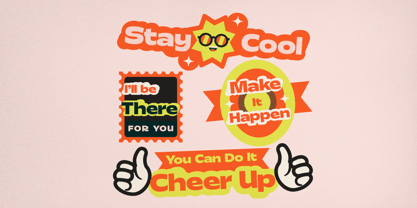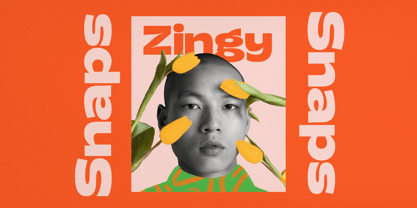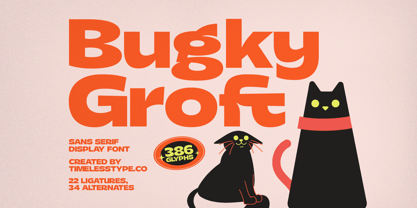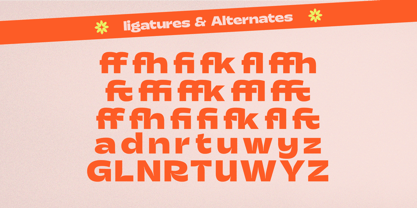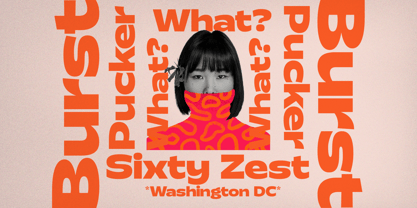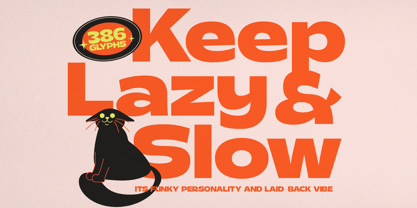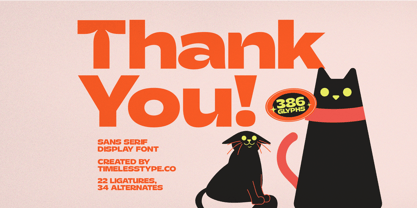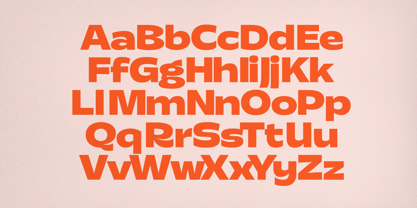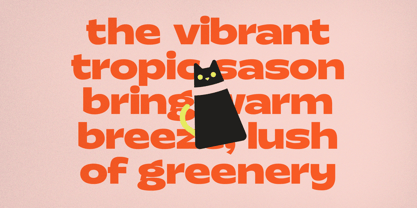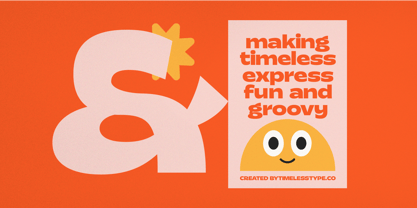
Bugky Groft
by Timelesstype Studio
The Bugky Groft Font Family was designed by Heru Utama Putra and published by Timelesstype Studio. Bugky Groft contains 2 styles and family package options. More about this family
Bugky Groft - Sans Serif Display Font , from Timelesstype , Suitable for any projects such as: logos, branding projects, homeware designs, product packaging, mugs, quotes, posters, shopping bags, t-shirts, book covers, name card, invitation cards, greeting cards, label, photography, watermark, special events, and all your other luxury and beautiful projects that need a Luxury Serif taste.